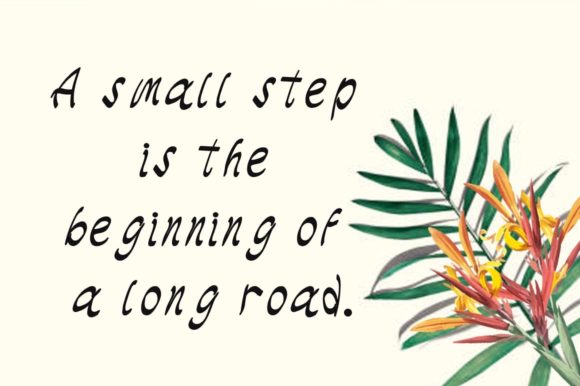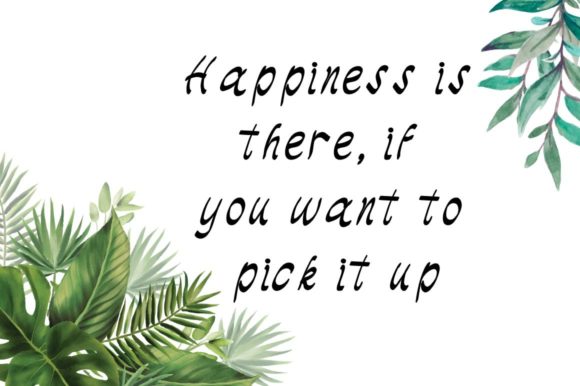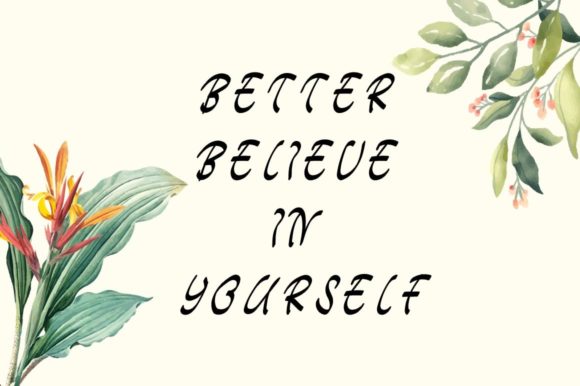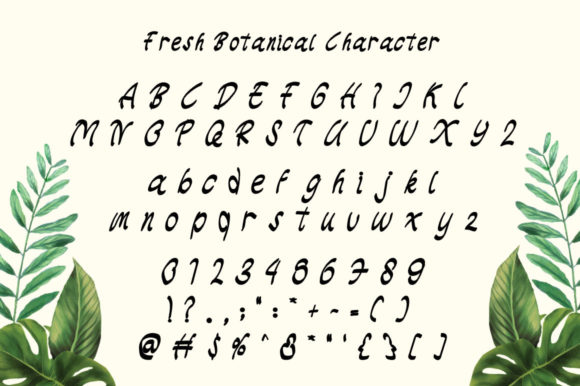
Introducing Fresh Botanical: The Ultimate Cute and Casual Script Font
Are you tired of using the same old fonts for your creative projects? Look no further! Fresh Botanical is a beautiful, hand-crafted script font that will add a touch of elegance and whimsy to any design. Whether you’re a designer, crafter, or DIY enthusiast, this font is sure to become your new go-to for all your creative endeavors.
What Makes Fresh Botanical So Special?
Fresh Botanical is a cute and casual script font that boasts a unique, hand-drawn charm. Its elegant strokes and beautiful lettering make it perfect for a wide range of applications, from logos and headings to t-shirts, letterhead, and signage. The font’s casual, laid-back vibe makes it ideal for designers and crafters who want to add a personal touch to their work.
With Fresh Botanical, the creative possibilities are endless! Here are just a few ideas to get you started:
- Instagram Fonts: Use Fresh Botanical to create stunning Instagram posts and stories that will make your followers stop and take notice.
- Calligraphy Scripts: Add a touch of elegance to your DIY projects with Fresh Botanical’s beautiful calligraphy scripts.
- Logos and Headings: Use Fresh Botanical to create eye-catching logos and headings that will make your brand stand out.
- T-Shirts and Merchandise: Create custom t-shirts, badges, and other merchandise with Fresh Botanical’s cute and casual script.
- Signage and Labels: Use Fresh Botanical to create beautiful signage and labels that will add a touch of personality to any room or product.
Why Choose Fresh Botanical?
So why choose Fresh Botanical over other script fonts? Here are just a few reasons:
- Unique and Hand-Crafted: Fresh Botanical is a one-of-a-kind, hand-crafted font that will add a touch of personality to any design.
- Easy to Read: Despite its elegant strokes, Fresh Botanical is easy to read and understand, making it perfect for body text and headings.
- Versatile: Fresh Botanical can be used in a wide range of applications, from digital designs to print materials.
- Cute and Casual: Fresh Botanical’s cute and casual script makes it perfect for designers and crafters who want to add a personal touch to their work.
Tips for Using Fresh Botanical
Here are a few tips for getting the most out of Fresh Botanical:
- Experiment with Different Sizes: Fresh Botanical looks great in a variety of sizes, from small headings to large display text.
- Play with Colors: Fresh Botanical’s elegant strokes look great in a wide range of colors, from bold and bright to soft and pastel.
- Mix and Match: Don’t be afraid to mix and match Fresh Botanical with other fonts to create a unique and eye-catching design.
| Font Name | Fresh Botanical Font |
| Author | morningmondayy |
In conclusion, Fresh Botanical is a beautiful, hand-crafted script font that is sure to become a staple in any designer’s or crafter’s toolkit. Its unique, elegant strokes and cute and casual script make it perfect for a wide range of applications, from logos and headings to t-shirts and signage. Whether you’re a seasoned designer or just starting out, Fresh Botanical is the perfect choice for anyone looking to add a touch of personality and whimsy to their creative projects.